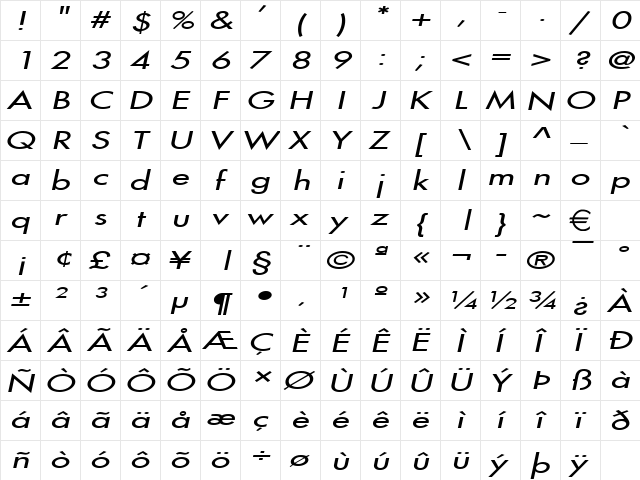
FusiExtended Italic
Design Context for FusiExtended Typeface
FusiExtended is a composed and adaptable typeface that performs quietly and consistently across a wide range of design contexts. The dynamic lean of this cut emphasises speed and emphasis in any layout.
Pro Tip: Try FusiExtended for annotation and caption copy alongside an upright companion — the contrast in angle creates a dynamic but ordered typographic system.